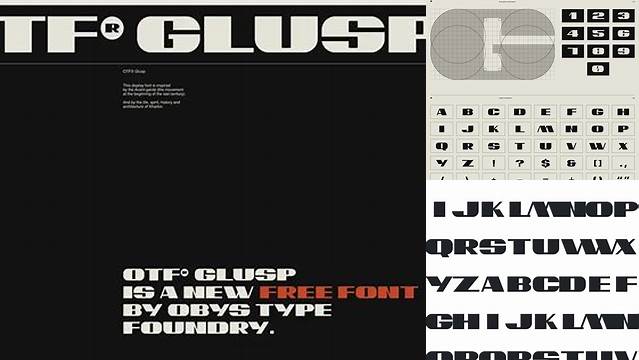
Glusp Font: A Versatile Free Font For Your Designs
Hey guys! Ever find yourself scrolling through endless font options, feeling like Goldilocks searching for the perfect fit? You know, not too boring, not too crazy, just right? Well, let me introduce you to Glusp, your new go-to free font! This font is seriously versatile, and the best part? It won't cost you a dime. Let's dive into what makes Glusp so awesome and how you can use it to spice up your projects.
What is Glusp?
Okay, so what exactly is Glusp? Glusp is a fantastic font available in OTF (OpenType Font) format. For those who aren't super font-savvy, OTF is a modern font format that's scalable and works great across different platforms and devices. This means whether you're designing on a Mac, a PC, or even using web-based tools, Glusp will look crisp and clear. The real magic of Glusp lies in its versatility. It’s designed with a clean and modern aesthetic, making it suitable for a wide range of projects. Think logos, websites, posters, social media graphics, and even print materials. The beauty of a font like Glusp is that it can seamlessly blend into various design styles. It's not overly decorative, which means it won't steal the show, but it's got enough personality to make your text stand out. It's that perfect balance that every designer craves. When we talk about free fonts, sometimes the quality can be a bit hit or miss. But Glusp is one of those gems that proves free doesn't have to mean low-quality. The creators have clearly put a lot of thought and effort into its design, ensuring it’s both visually appealing and highly functional. What's even cooler is that because it is free to use, you can experiment with it in different contexts without worrying about licensing fees or restrictions. This makes it an ideal choice for personal projects, student work, or even commercial ventures where you need a reliable and stylish font on a budget. Plus, let’s be real, who doesn’t love saving a bit of cash while still creating amazing designs? So, if you’re in the market for a versatile, high-quality, and free font, Glusp should definitely be on your radar. It’s the kind of font that can quickly become a staple in your design toolkit, ready to tackle any project you throw its way.
Why Choose Glusp? The Perks of This Free Font
How to Use Glusp in Your Designs: Tips and Ideas
Okay, you've downloaded Glusp, you've installed it, and now you're staring at a blank canvas, wondering, "How do I actually use this thing?" Don't worry, I'm here to help! Glusp's versatility makes it a fantastic choice for a wide range of design projects, but let's explore some specific tips and ideas to get your creative juices flowing. One of the best ways to use Glusp is in branding projects. Its clean and modern aesthetic makes it perfect for creating logos, business cards, and other visual elements that represent your brand. Try using Glusp for your company name or tagline, paired with a complementary font for body text. The key is to strike a balance between visual interest and readability. Glusp is also a great option for website design. Its clear and legible letterforms make it ideal for headings, subheadings, and body text. Using Glusp across your website can create a consistent and professional look. Experiment with different font sizes and weights to create visual hierarchy and guide your visitors' eyes through the content. Don't be afraid to pair Glusp with other fonts to add a bit of personality to your site. For example, you might use a more decorative font for headings and Glusp for the body text, or vice versa. Social media graphics are another area where Glusp can really shine. In the fast-paced world of social media, your visuals need to grab attention quickly. Glusp's clean and modern design ensures your text is easy to read, even at small sizes. Use it to create eye-catching headlines, captions, and call-to-actions. Consider layering text over images or using Glusp in bold colors to make your message stand out. If you're working on print materials, such as posters, flyers, or brochures, Glusp is an excellent choice. Its scalability ensures it will look crisp and clear, even when printed at large sizes. When designing for print, pay attention to the font size and spacing to ensure readability. Experiment with different layouts and color combinations to create a visually appealing design. Beyond these specific applications, Glusp is also a great font for personal projects, such as resumes, presentations, and invitations. Its versatility allows you to use it in a variety of contexts, and its free price tag makes it an affordable option for everyone. Remember, the key to using any font effectively is to experiment and have fun! Try different combinations, styles, and sizes to see what works best for your project. Don't be afraid to break the rules and create something truly unique. With Glusp in your font arsenal, the possibilities are endless!
Final Thoughts: Glusp – Your New Favorite Free Font?
So, we've explored what Glusp is, why it's awesome, where to download it, and how to use it. But the big question remains: Is Glusp your new favorite free font? Honestly, I think it has a serious shot. Glusp ticks all the boxes: it's free, versatile, stylish, and easy to use. In a world of endless font options, finding one that offers this combination of qualities is like finding a unicorn riding a bicycle – rare and pretty darn special. What I love most about Glusp is its adaptability. It's the kind of font that can seamlessly fit into a wide range of design styles and projects. Whether you're going for a minimalist, modern look or something a bit more playful and whimsical, Glusp can deliver. This versatility makes it a fantastic choice for designers of all levels, from seasoned pros to beginners just starting out. Plus, the fact that it's free makes it accessible to everyone, regardless of their budget. In the design world, where resources can sometimes be expensive, having a high-quality free font in your toolkit is a game-changer. It allows you to experiment and create without worrying about the financial burden. Of course, Glusp isn't the only free font out there, but it stands out for its quality and attention to detail. The creators have clearly put a lot of thought into its design, ensuring it's both visually appealing and highly functional. This level of craftsmanship is what sets Glusp apart from many other free fonts that can sometimes feel a bit generic or poorly executed. Ultimately, the best way to decide if Glusp is the right font for you is to try it out for yourself. Download it, install it, and start experimenting with it in your designs. Play around with different sizes, weights, and styles to see how it looks in various contexts. And don't be afraid to get creative and push the boundaries. Who knows, you might just discover that Glusp is the missing piece you've been searching for to elevate your designs to the next level. So, give Glusp a try and let me know what you think! I have a feeling you'll be pleasantly surprised by what this little free font can do. Happy designing, guys!